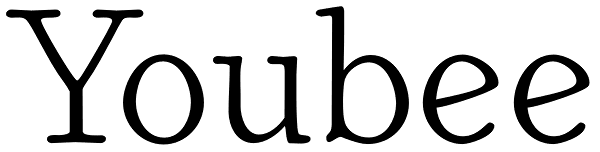
Youbee
Youbee or UB stands for ultimate blend because this font was created by blending four very different typefaces that I had designed. It works well as a semi-informal text face, but suffers at larger point sizes. The four typefaces from which Youbee...